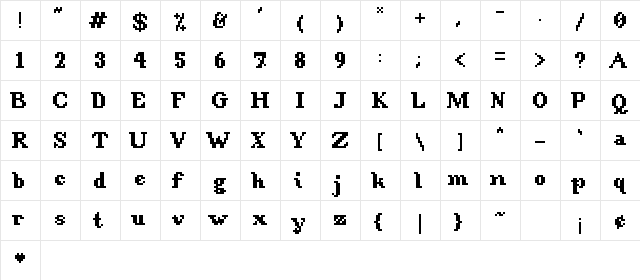
AGSFontSetSerif Medium
Design Context for AGSFontSetSerif Typeface
AGSFontSetSerif carries the refined structure of traditional serif typography, with bracketed terminals and considered proportions that communicate credibility and craft.
Pro Tip: Set AGSFontSetSerif with slightly loose tracking in headlines to let each letterform's detail read clearly at display sizes.